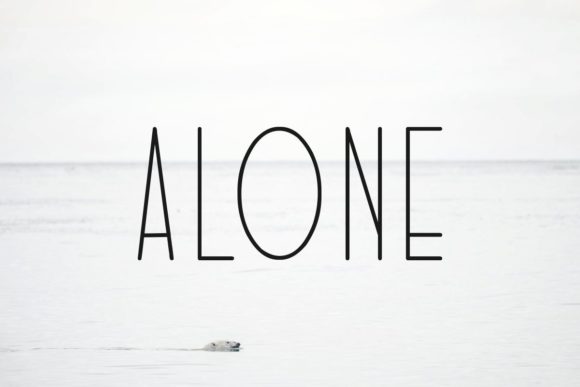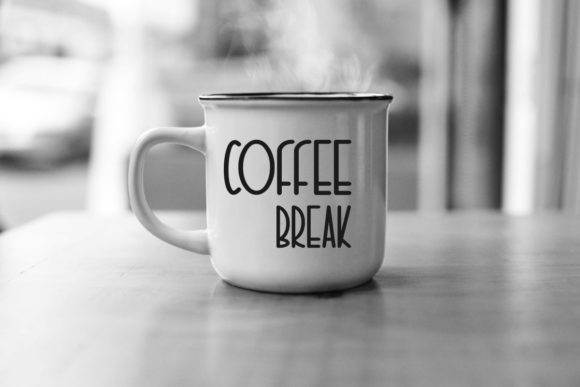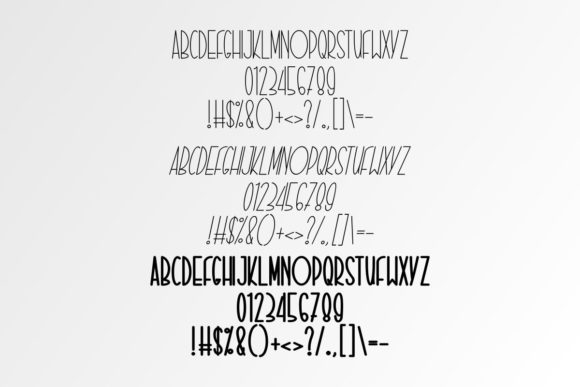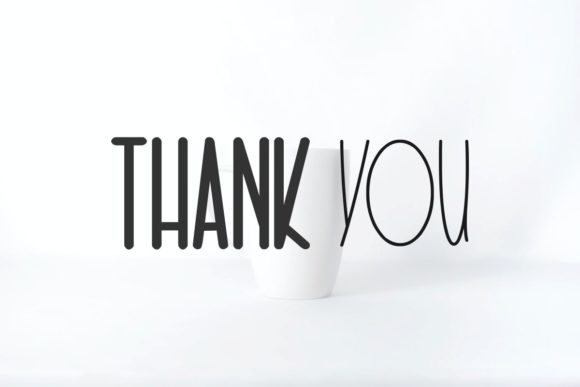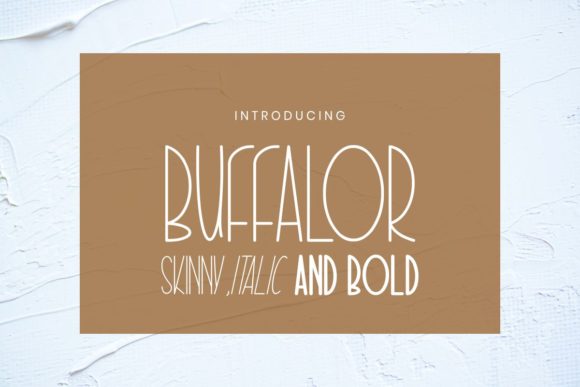
Introducing Buffalor Font: Elevate Your Designs with Elegance and Magic
Are you a designer, crafter, or DIY enthusiast looking for a font that can add a touch of elegance and magic to your creative projects? Look no further than Buffalor Font, a carefully crafted sans serif font that is sure to turn your ideas into true works of art. In this article, we’ll dive into the world of Buffalor Font, exploring its features, benefits, and uses, as well as provide tips and inspiration for incorporating it into your designs.
The Story Behind Buffalor Font
Buffalor Font is a unique and versatile font that has been carefully designed to bring a touch of sophistication and whimsy to your designs. With its clean lines, elegant curves, and magical flair, this font is perfect for a wide range of creative projects, from social media graphics and posters to DIY crafts and calligraphy scripts.
Key Features of Buffalor Font
- Magical Sans Serif Design: Buffalor Font boasts a beautiful sans serif design that is both modern and elegant, making it perfect for designs that require a touch of sophistication.
- Elegant and Whimsical: With its unique blend of elegance and playfulness, Buffalor Font is ideal for designs that require a dash of personality and charm.
- Highly Versatile: Whether you’re creating social media graphics, posters, or DIY crafts, Buffalor Font is a versatile choice that can be used in a wide range of creative projects.
- Perfect for Instagram and Social Media: With its clean lines and elegant curves, Buffalor Font is a great choice for Instagram and social media graphics, helping you to create stunning visuals that will engage and inspire your audience.
Benefits of Using Buffalor Font
So why choose Buffalor Font for your designs? Here are just a few benefits of using this amazing font:
- Adds Elegance and Sophistication: Buffalor Font brings a touch of elegance and sophistication to your designs, helping you to create stunning visuals that will impress and inspire your audience.
- Boosts Creativity: With its unique blend of elegance and playfulness, Buffalor Font is sure to spark your creativity and inspire you to try new things.
- Perfect for DIY Projects: Whether you’re creating handmade crafts, DIY decorations, or personalized gifts, Buffalor Font is a great choice for adding a touch of personality and charm to your projects.
Using Buffalor Font for Instagram and Social Media
In today’s digital age, having a strong visual presence on social media is crucial for designers, crafters, and DIY enthusiasts. With Buffalor Font, you can create stunning Instagram graphics, posters, and social media posts that will engage and inspire your audience. Here are a few tips for using Buffalor Font on Instagram and social media:
- Keep it Simple: Use Buffalor Font to create simple, yet elegant graphics that showcase your message or product.
- Add a Pop of Color: Experiment with different colors and textures to add visual interest to your graphics and make them stand out on social media.
- Be Consistent: Use Buffalor Font consistently across your social media channels to create a cohesive brand identity and build recognition with your audience.
Tips for Using Buffalor Font in DIY Projects
Buffalor Font is not just for digital designs – it’s also perfect for DIY projects and handmade crafts. Here are a few tips for using Buffalor Font in your DIY projects:
- Personalize Your Gifts: Use Buffalor Font to add a personal touch to your gifts, such as handmade cards, gift tags, and decorations.
- Create Stunning Decorations: Use Buffalor Font to create beautiful decorations, such as wall art, signs, and banners, that will add a touch of elegance to your home or office.
- Add a Touch of Whimsy: Experiment with different colors and textures to add a touch of whimsy and personality to your DIY projects.
| Author | Pidco.art |
In conclusion, Buffalor Font is a magical sans serif font that is sure to elevate your designs and add a touch of elegance and magic to your creative projects. With its highly versatile design, elegant curves, and whimsical flair, Buffalor Font is perfect for designers, crafters, and DIY enthusiasts who want to create stunning visuals that will engage and inspire their audience. So why wait? Download Buffalor Font today and start turning your creative ideas into true works of art!